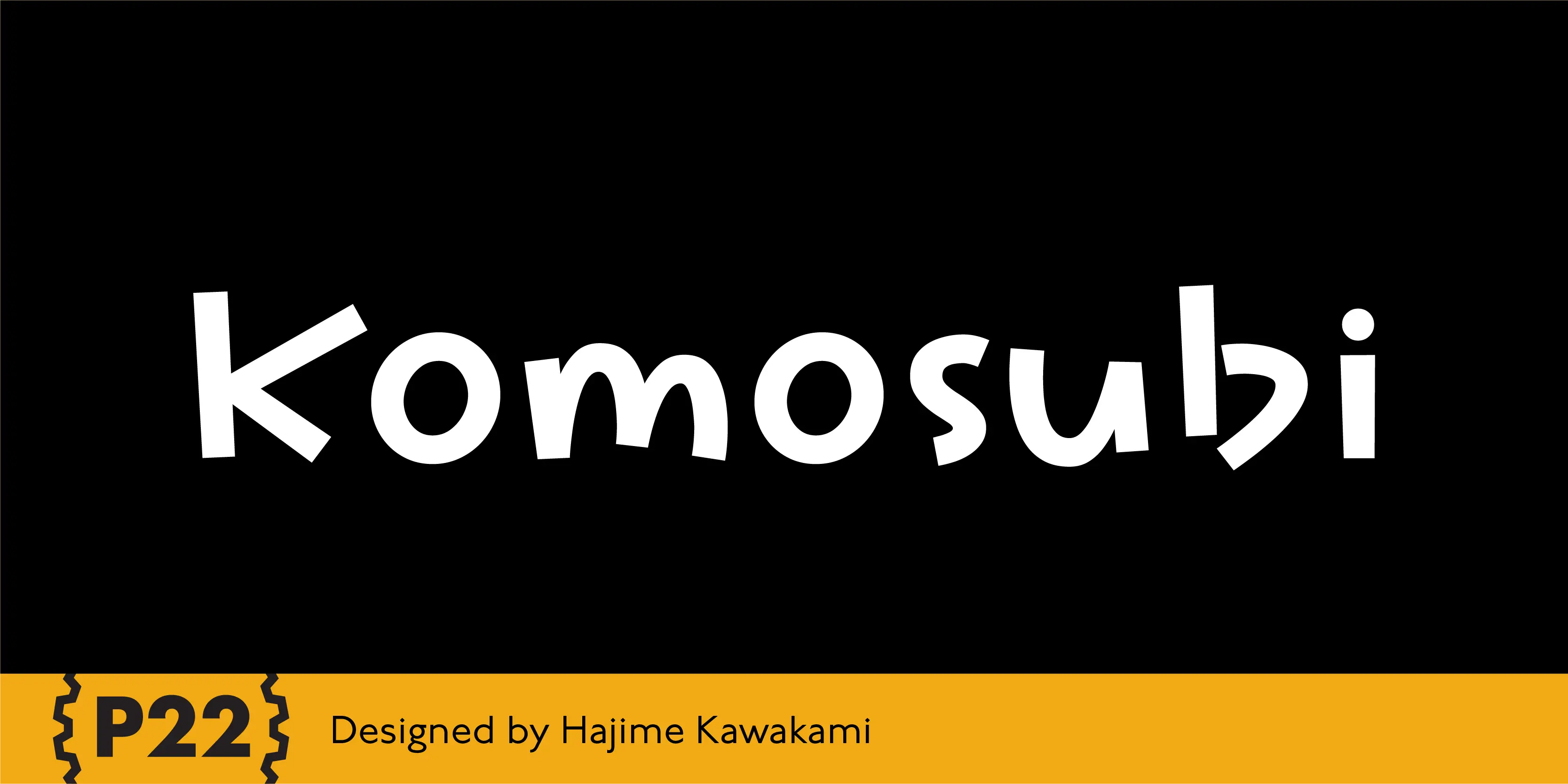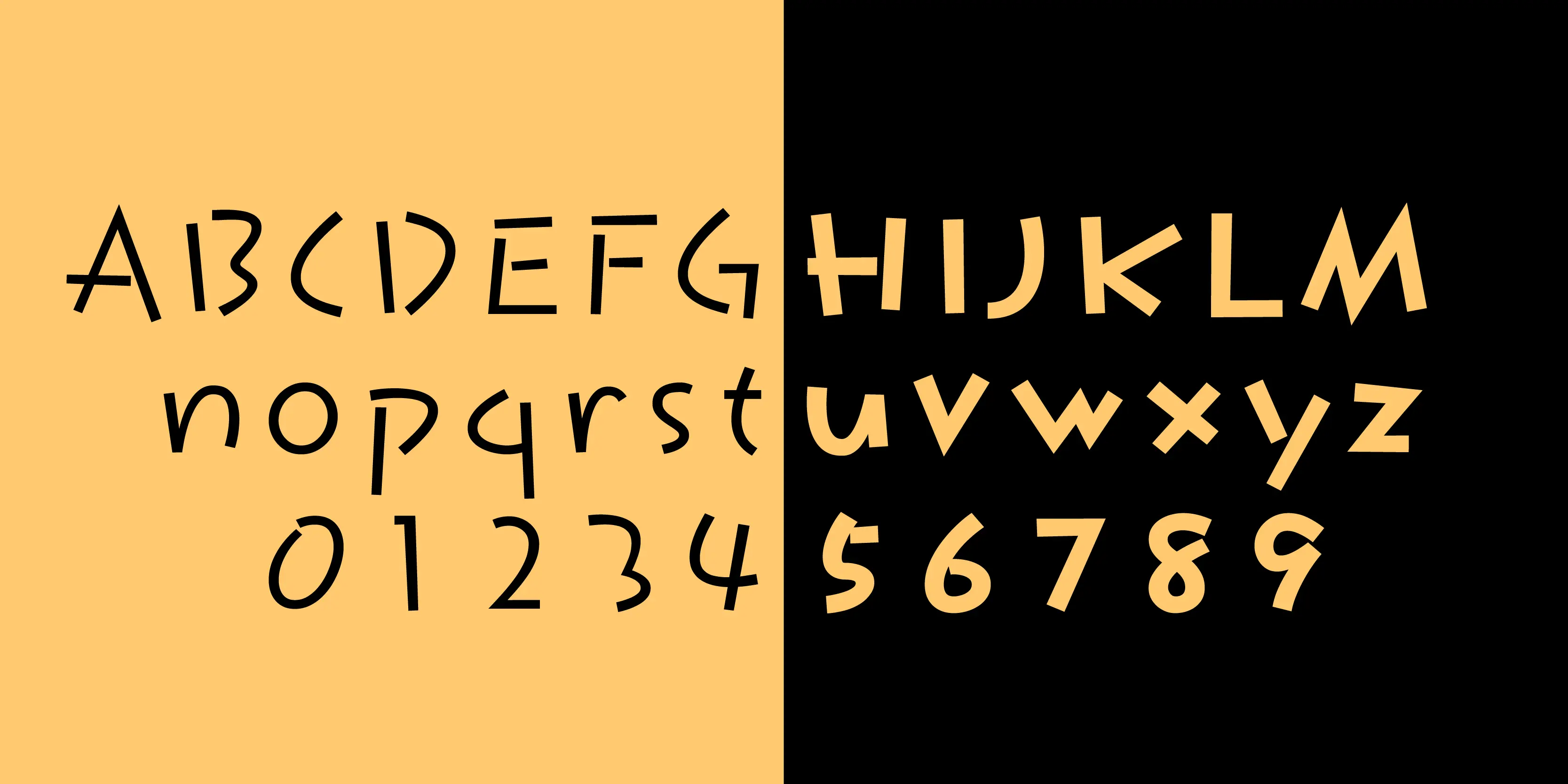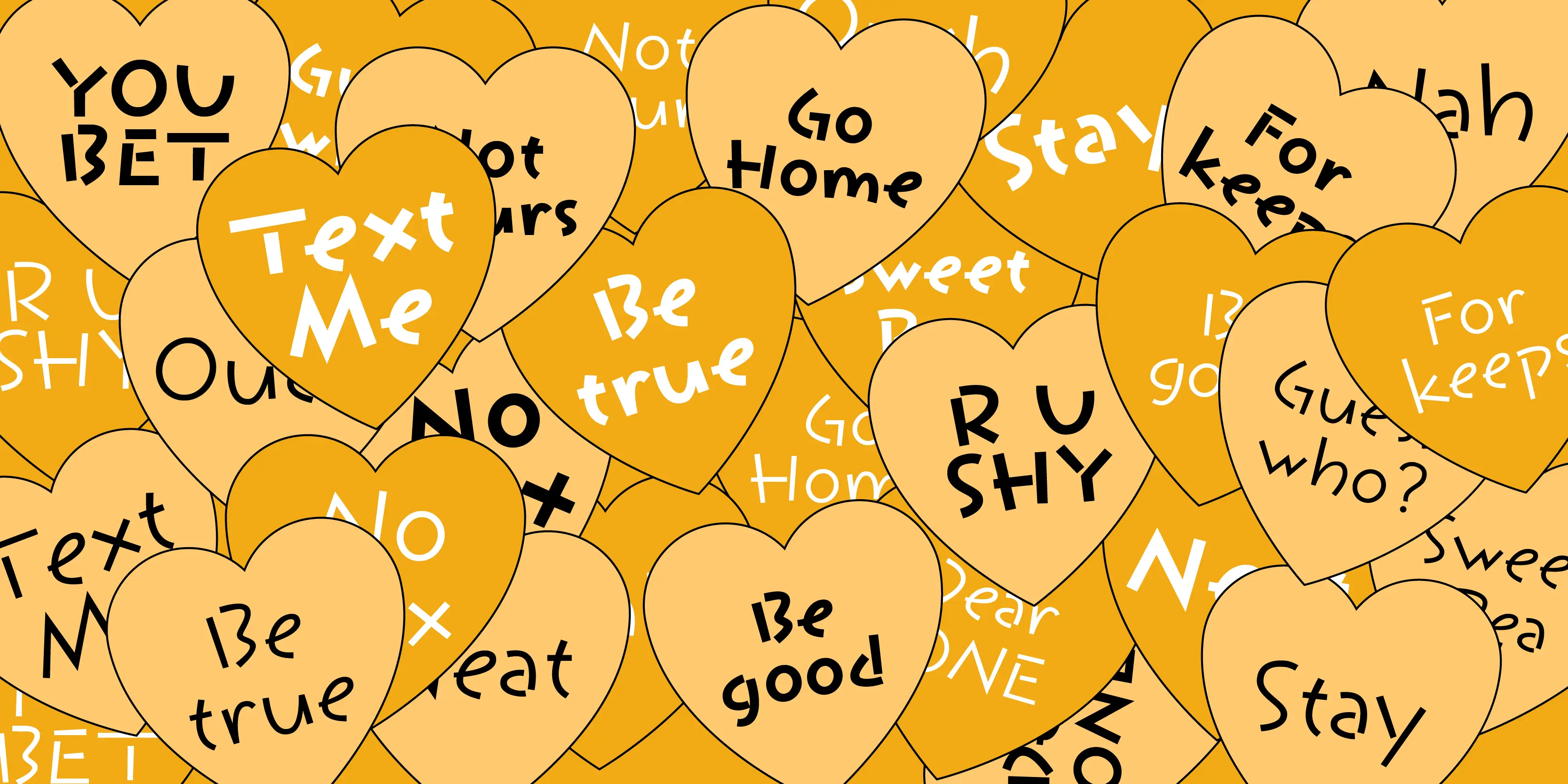
Komusubi Font Family
Komusubi
In Japanese, Komusubi means to tie up a string or ribbon into a little knot. The lyrical tone of the name reflects the casualness of the font itself. This lively display font comes in regular and bold.